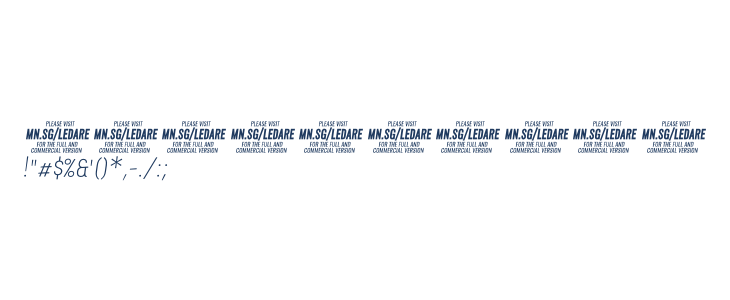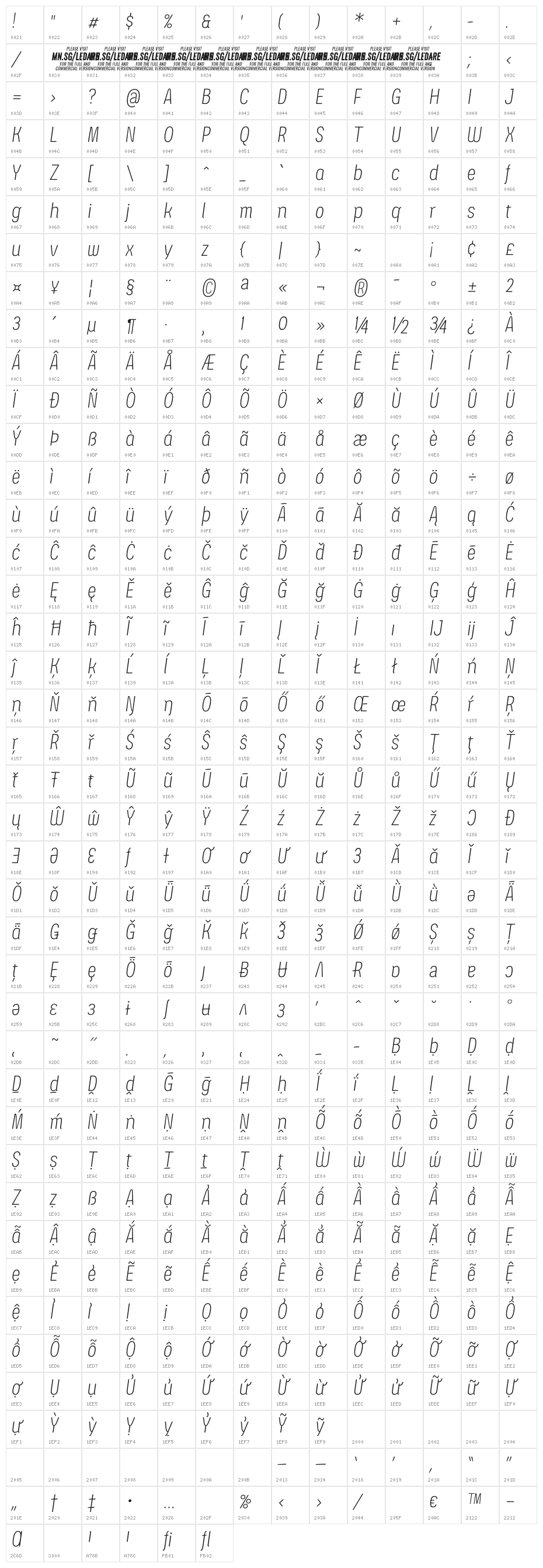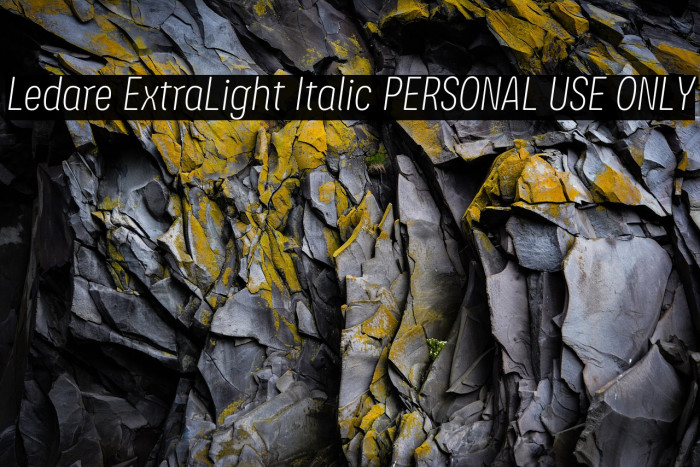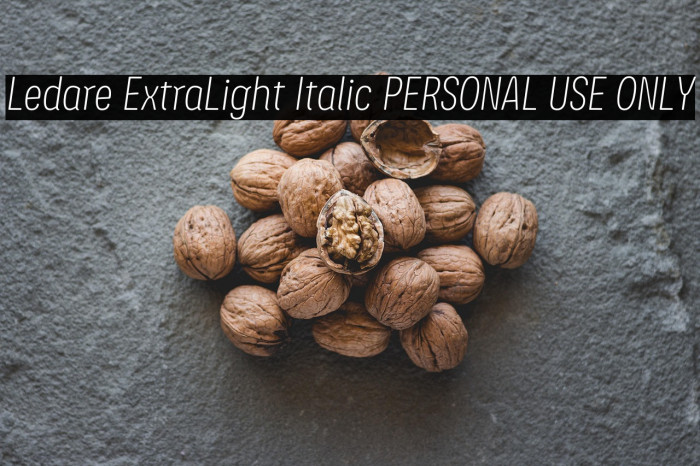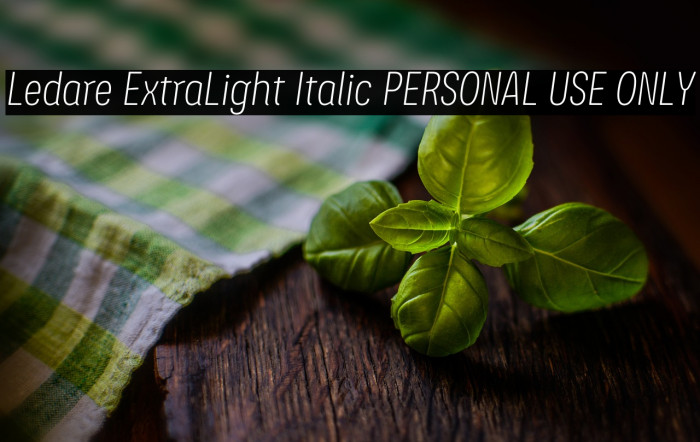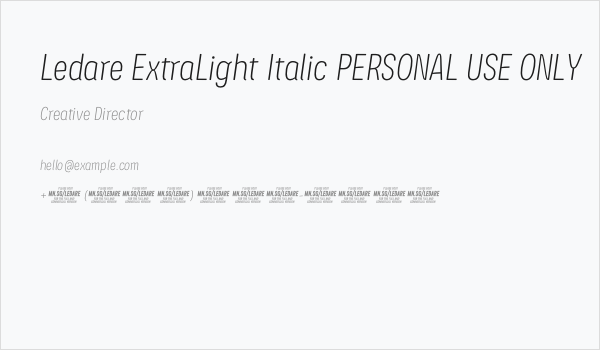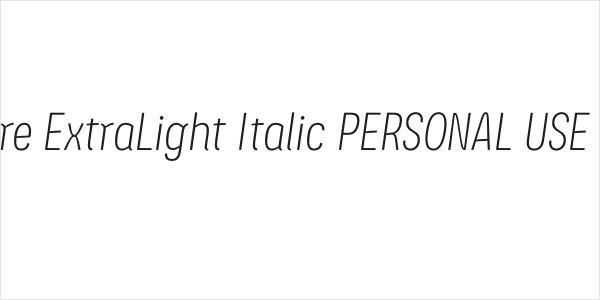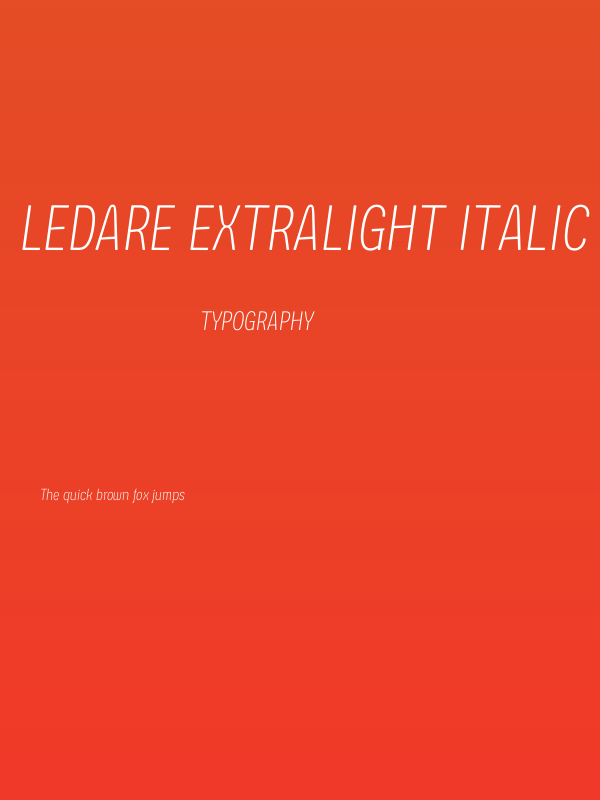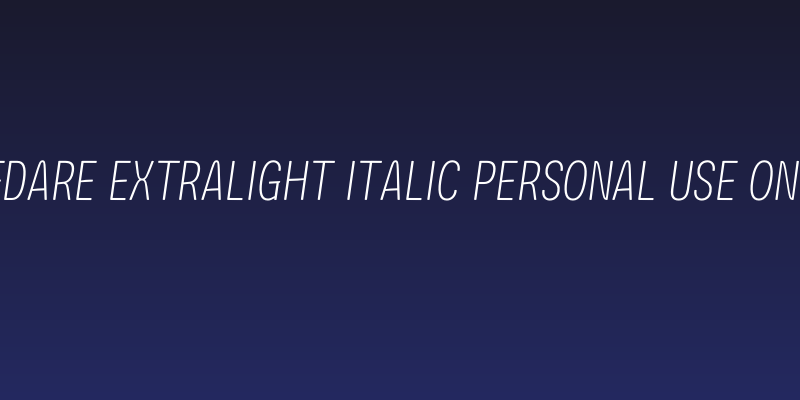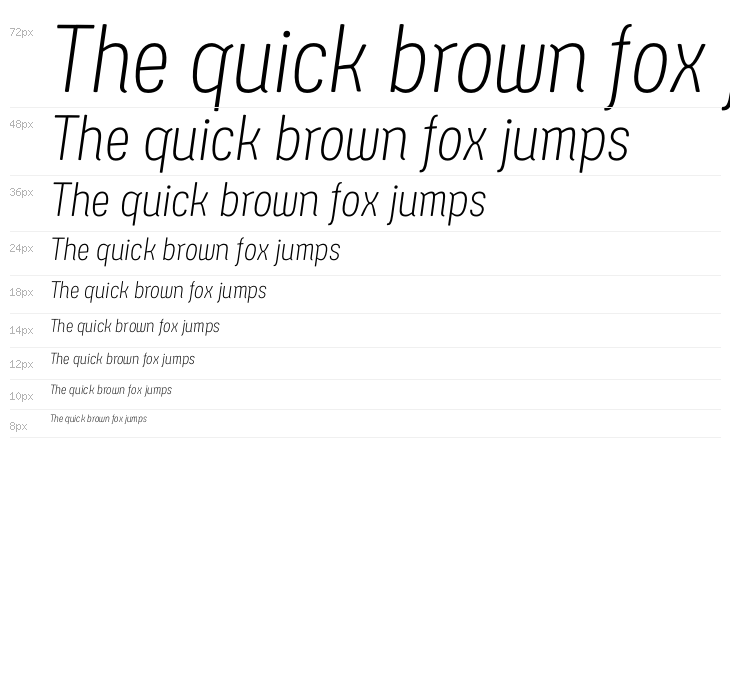
Ledare ExtraLight Italic PERSONAL USE ONLY Font
Ledare ExtraLight Italic PERSONAL USE ONLY Description
This font features a sleek and elegant design with an extra light weight and italic style. The characters are elongated with a slight slant, giving it a sophisticated and modern appearance. The uppercase and lowercase letters maintain a consistent stroke width, contributing to its clean and minimalistic look. The numerals and special characters are designed to complement the overall aesthetic, ensuring readability and style. This font is ideal for projects that require a touch of elegance and modernity.